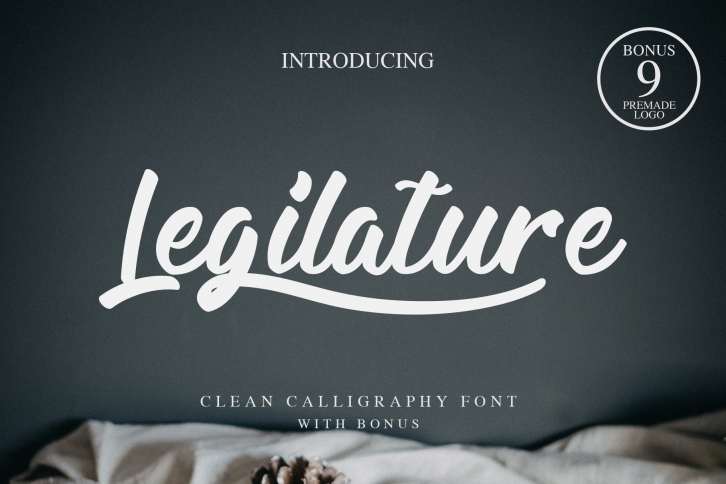
Legilature with BONUS is a gorgeous font that was realeased on December 20, 2018. The font can be used in many style contexts and design environments. Perfect for invitations, magazines, websites, logos, and more! It was designed by alphArt and the file size is 15.66 MB. Thanks for checking out this font!